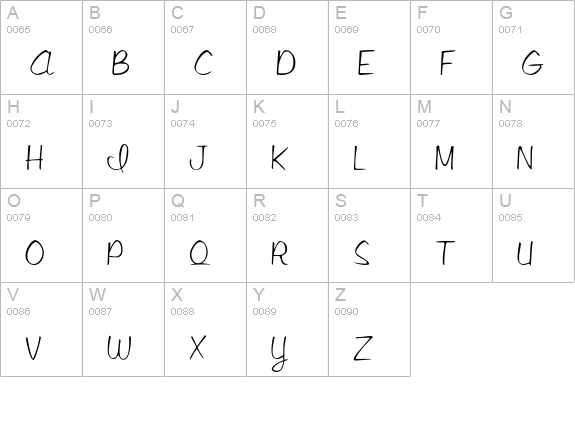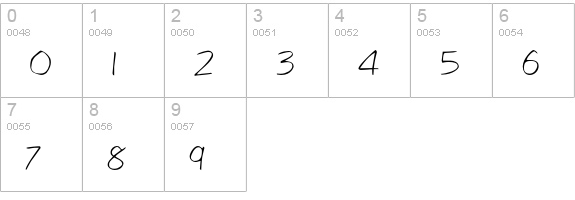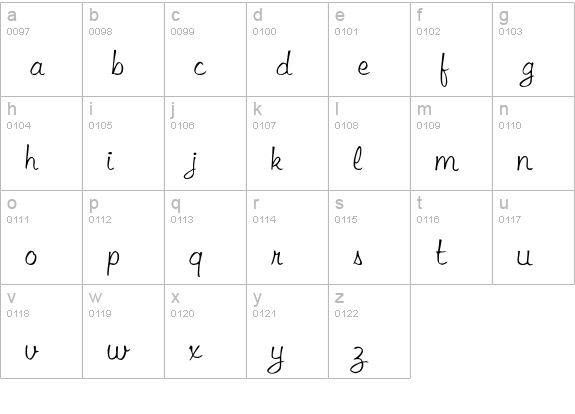
Rebecca Font Details
Introducing Rebecca font, a stunningly elegant typeface that will add a touch of sophistication to your designs. With its graceful curves and delicate strokes, Rebecca exudes a sense of timeless beauty. Whether you're designing invitations, logos, or branding materials, this font will effortlessly elevate your creations to new heights. What sets Rebecca font apart is not only its visual appeal, but also its accessibility. It is freely available to download at FontsMarket.com, making it the perfect choice for both personal and commercial projects. This means that you can add a touch of class to your designs without breaking the bank. The versatility of Rebecca font is another reason to love it. Its clean lines and legible characters make it suitable for a wide range of design applications. Whether you're looking to create elegant wedding invitations, sophisticated business cards, or eye-catching social media graphics, this font will always deliver. But don't let its simplicity fool you – Rebecca font is far from ordinary. It manages to strike the perfect balance between classic and contemporary, making it a truly versatile choice for any project. Its timeless elegance will never go out of style, ensuring that your designs stand the test of time. So why wait? Download Rebecca font for free at FontsMarket.com and unlock the potential to create stunning designs that leave a lasting impression. Whether you're a professional designer or just starting out, this font is a must-have in your creative toolbox. With Rebecca font, you can effortlessly add a touch of sophistication to any project and make a lasting impact.